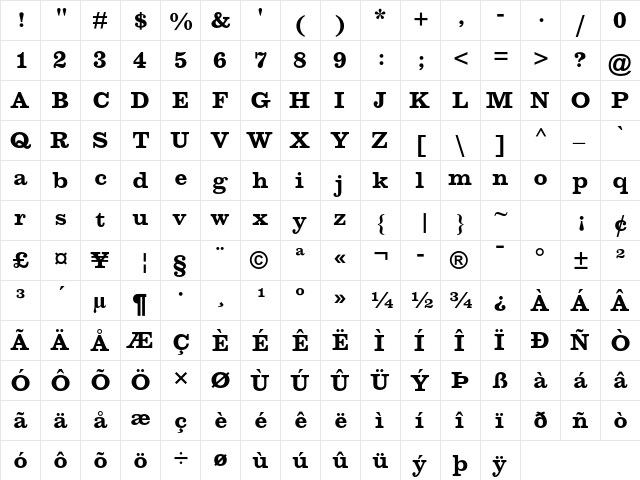
New Clarendon MT Std Bold
Design Context for New Clarendon MT Std Typeface
New Clarendon MT Std combines the readability of serif typography with the visual weight of a slab construction, resulting in a typeface that feels both authoritative and approachable. The heavy weight commands attention and anchors typographic hierarchies.
Suited to magazines, political campaign materials, bold packaging, and any setting where authority matters.
Pro Tip: Use New Clarendon MT Std for headlines and subheadings where its slab serifs can make an impression. It also holds up well in mid-size body copy thanks to its sturdy construction.